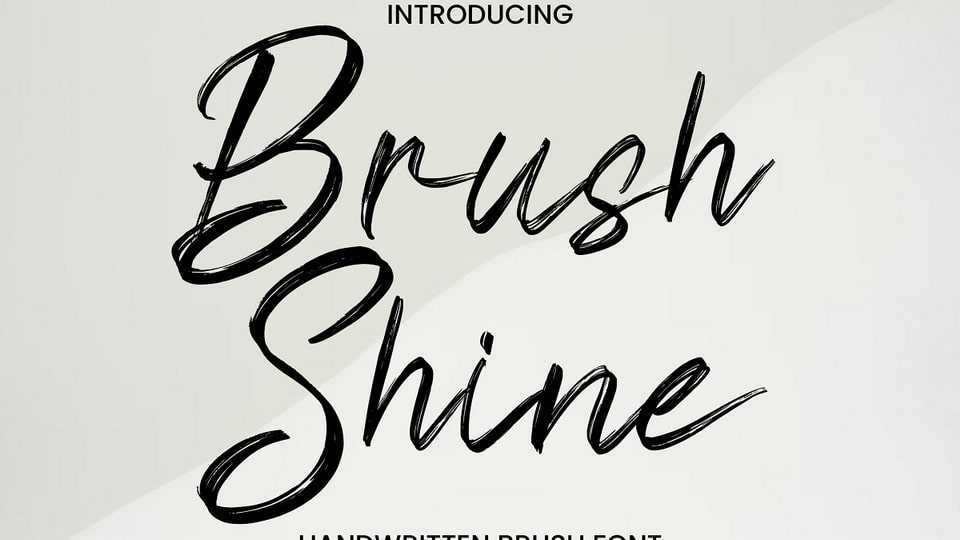
Download Brush Shine font, a brush script-style typeface. Featuring the perfect amount of trendiness, the font will make your designs come to life.
Designer: Rvandtype Studio